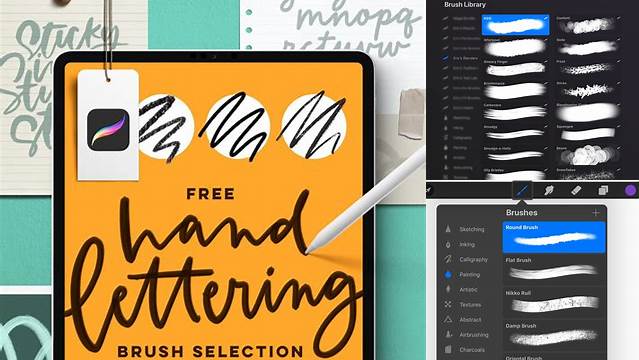
Hey guys! Ever wanted to add that perfect handwritten touch to your digital art in Procreate? Or maybe you're aiming for a vintage vibe with some cool retro fonts? Well, you're in luck! In this article, we're diving deep into the world of free font Procreate brushes, showing you where to find them, how to install them, and how to use them to level up your lettering game. So, grab your iPad and let's get started!
What are Font Procreate Brushes?
Let's kick things off with the basics. Font Procreate brushes aren't actually fonts in the traditional sense. Instead, they are custom-designed brushes that mimic the look of different typefaces. Think of them as stamps or pre-designed strokes that you can use to create lettering and typography within Procreate. Unlike actual fonts, which are vector-based and scalable without loss of quality, these brushes are raster-based, meaning they're made up of pixels. This also means that the resolution of your canvas and the size of the brush will affect the final look. Because of this, they are commonly used for creating titles and decorative elements, as opposed to large blocks of text. The beauty of font Procreate brushes lies in their ability to add unique textures, imperfections, and a handmade feel to your digital artwork. You can find brushes that replicate calligraphy, graffiti, vintage type, and much more, all for free or at a minimal cost. This makes them an accessible and fun way to experiment with different lettering styles without having to purchase expensive font licenses or master complex typography software. Plus, they’re super easy to install and use, making them a favorite among both beginner and experienced digital artists. By using these brushes, you are able to produce unique assets that closely resemble fonts. However, unlike fonts, the brushes have an advantage of being easily customizable. You can easily change brush sizes, textures, and colors to your liking. The brushes allow artists to apply shadows and highlights. Ultimately, font Procreate brushes are the perfect tool for adding a touch of personality to your digital artwork.
Where to Find Free Font Procreate Brushes
- Download the Brush Set: Once you've found a brush you like, download the brush set to your iPad. Brushes typically come in a
- Import the Brush:
- Organize Your Brushes: Once the brush is imported, you can rename the brush set and rearrange the brushes within it to keep things organized.
That's it! Your new free font Procreate brushes are ready to use. If you're having trouble installing a brush, make sure your Procreate app is up to date, and try restarting your iPad. Sometimes a simple restart can fix minor glitches.
How to Use Font Procreate Brushes
Okay, so you've got your brushes installed, but how do you actually use these free font Procreate brushes to create amazing lettering? Here are some tips and tricks to get you started: